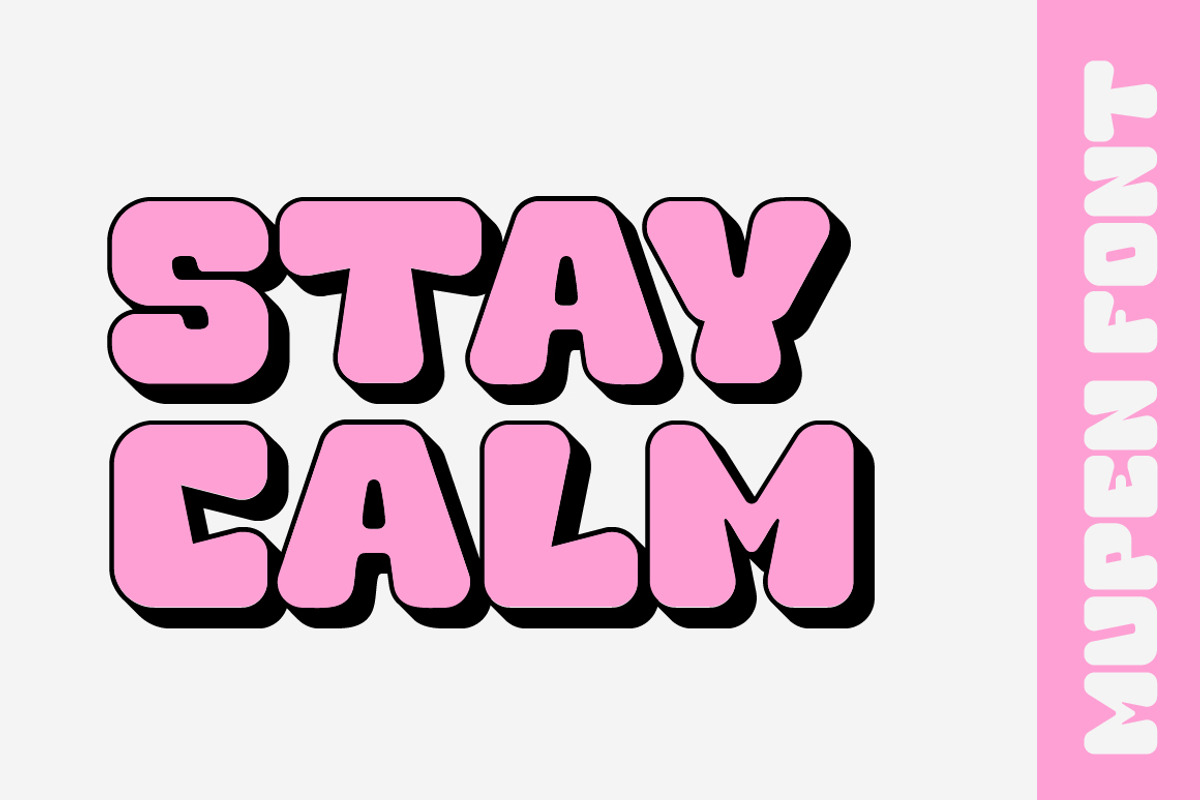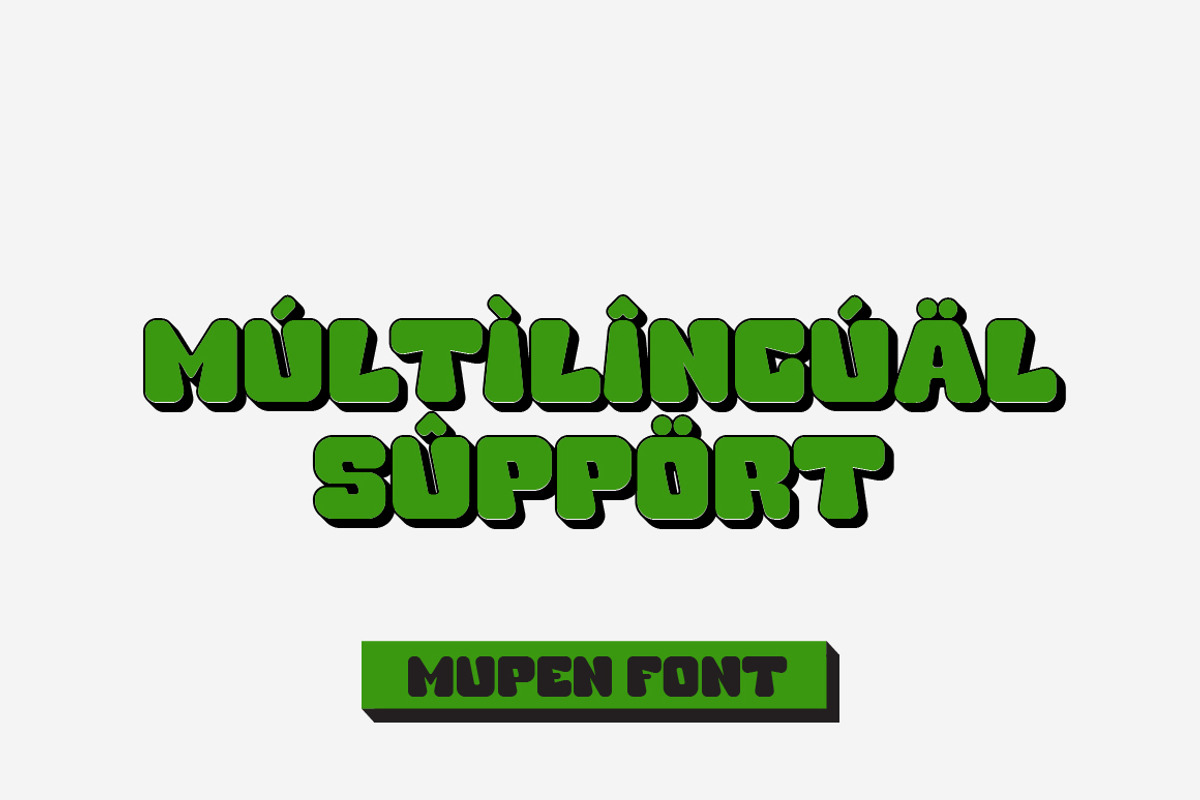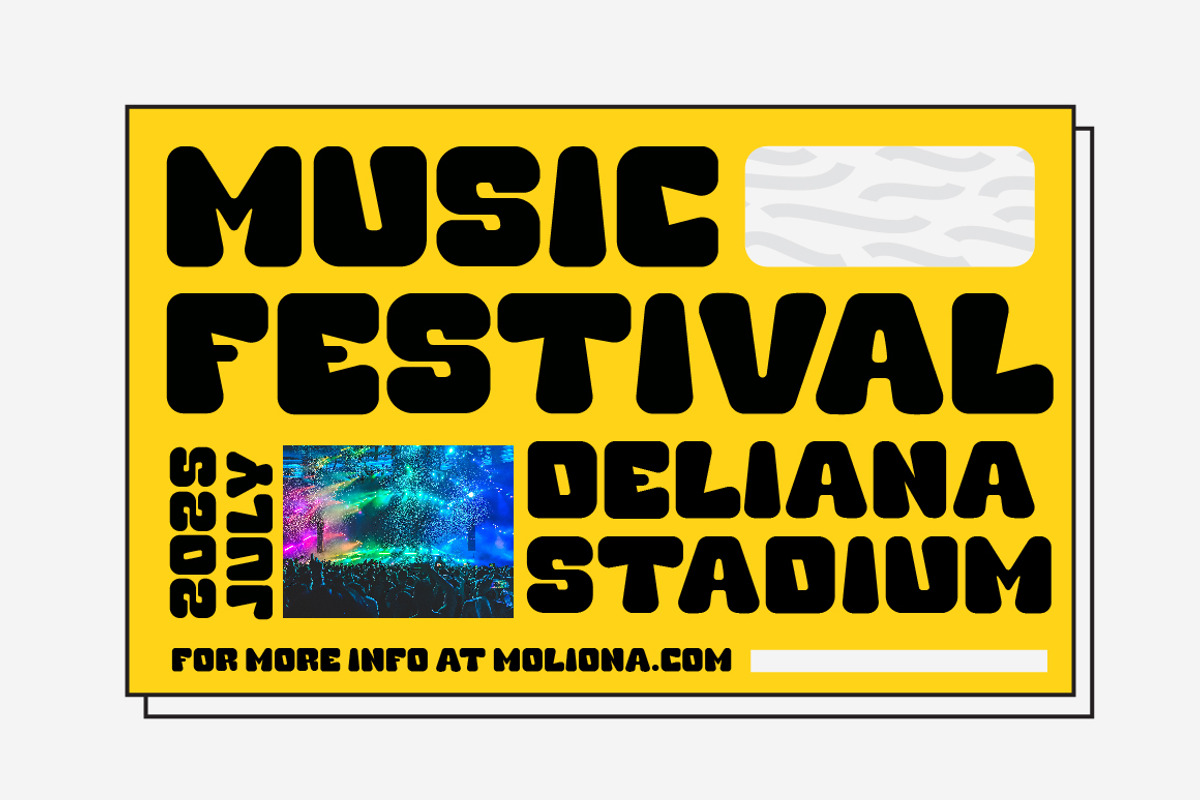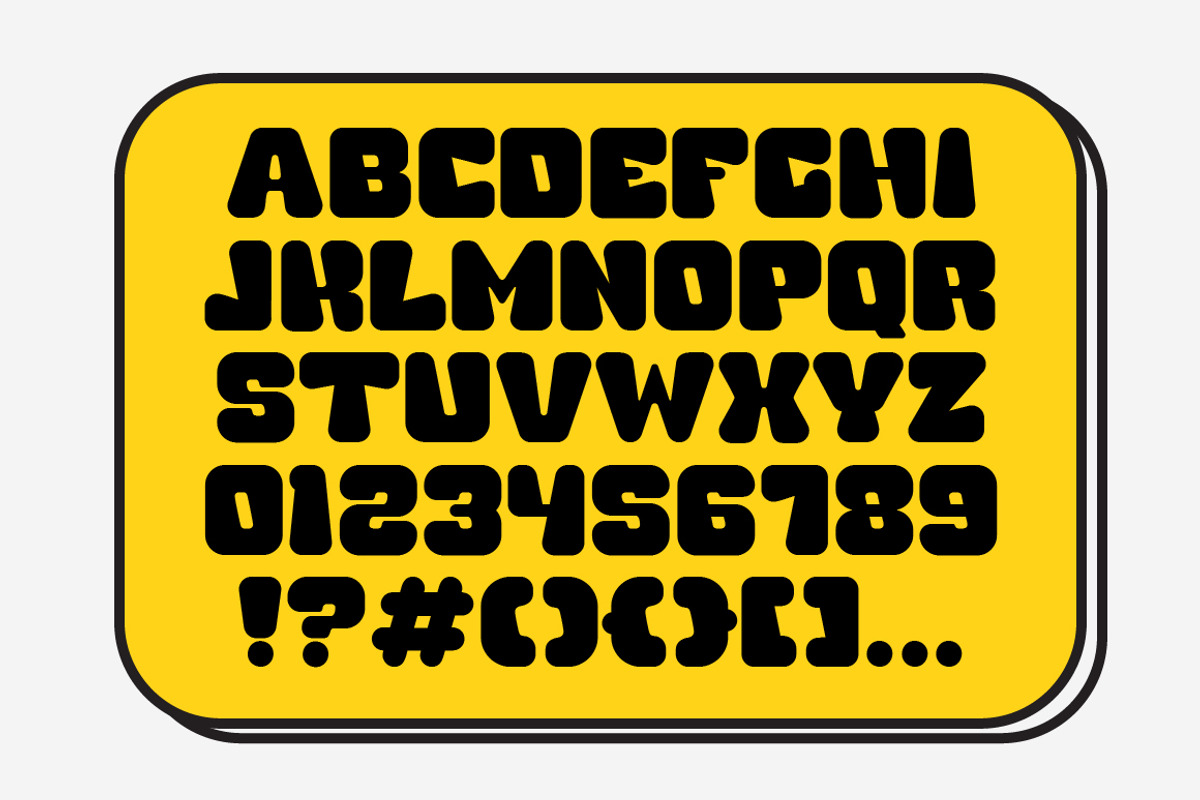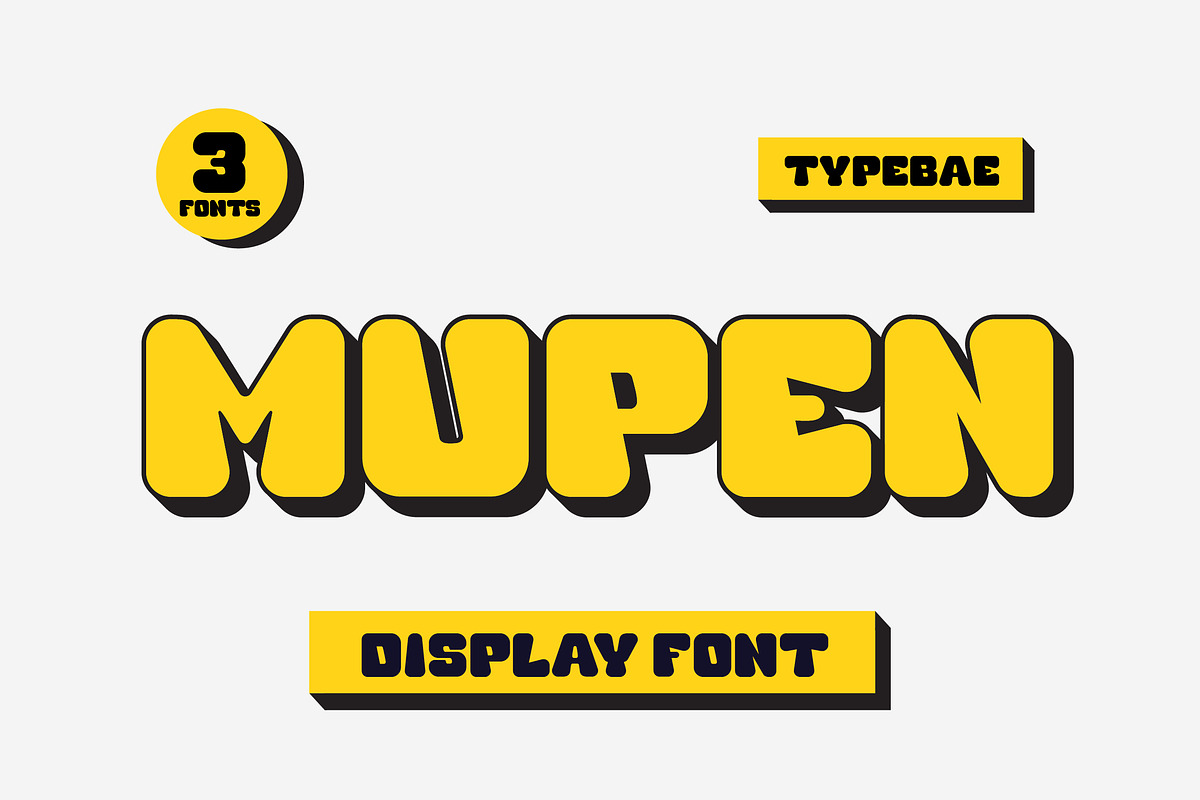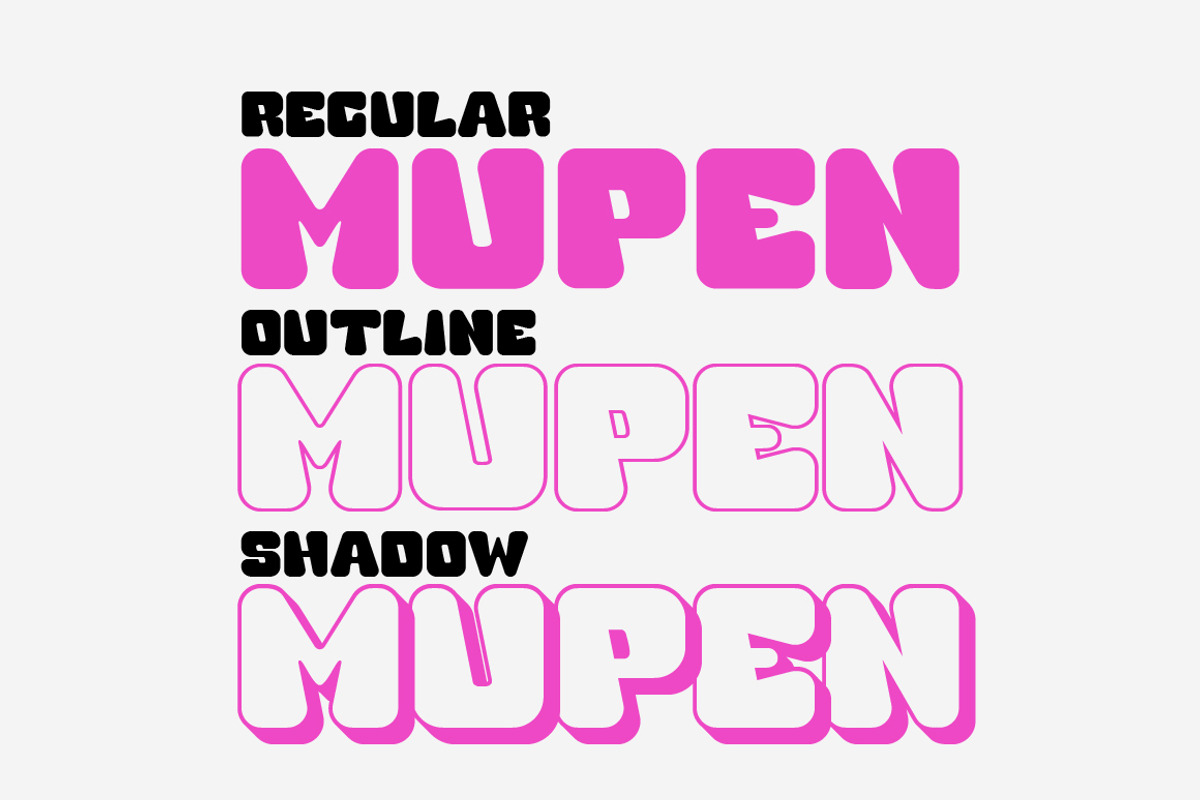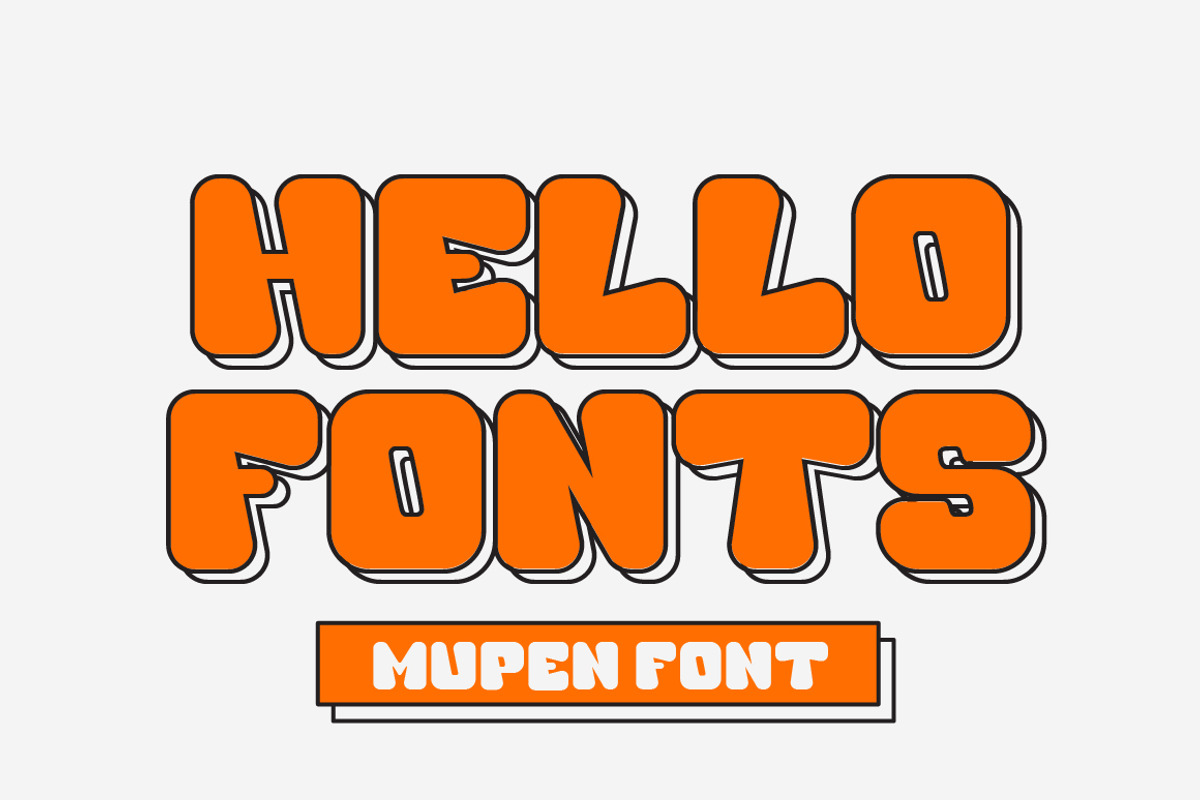
Mupen – Neubrutalism Bold
Mupen is a bold and fun display font inspired by neubrutalism styles. Create an engaging typographic design with this striking typeface, and try it on posters, book covers, signage, advertisements, t-shirts, applications, games, etc. You will be impressed with the results.
Feature: Uppercase, Lowercase, Numeral, Punctuation, PUA Encode & Multilingual.